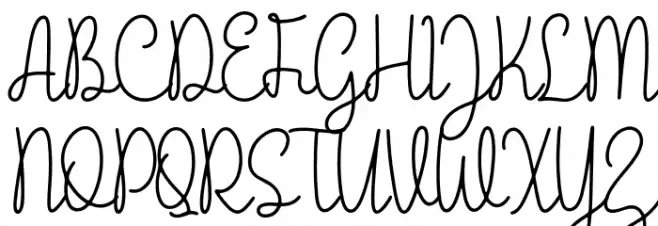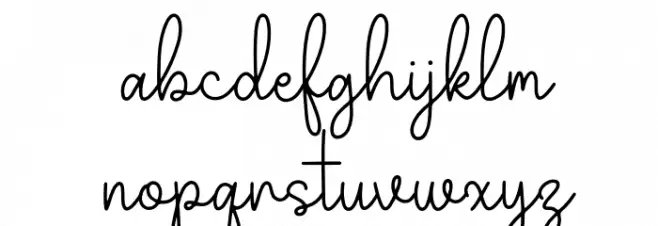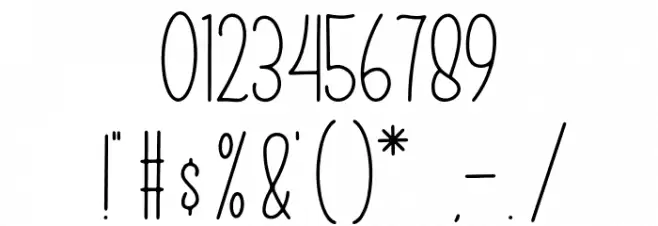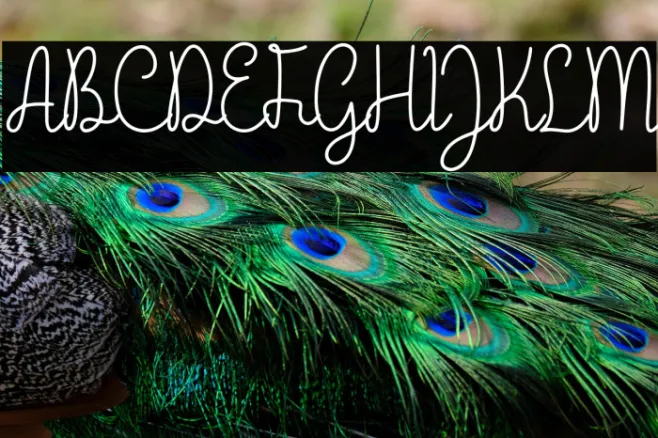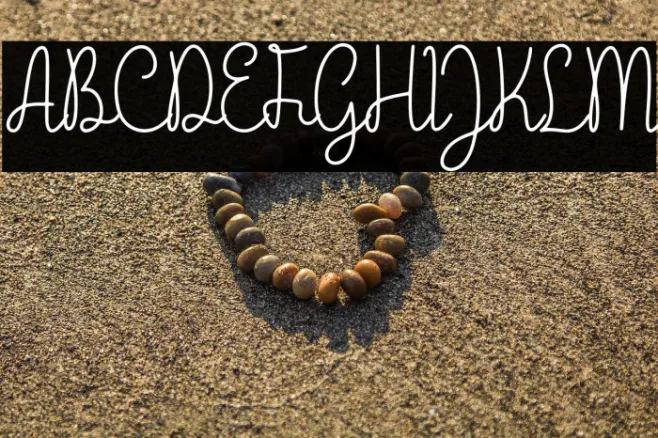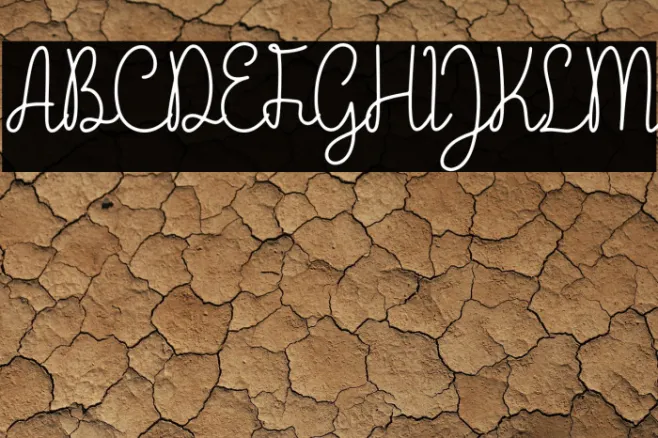
GreyJoy Font
GreyJoy Description
A playful, handwritten script font with a casual and flowing style, featuring connected letters and a friendly appearance.
Playful handwritten script font.
- Font: GreyJoy
- Proposed Projects: Greeting cards, invitations, personal branding.
- Category: Script
- Character Spacing: Tight
- Overall Style: Casual, Friendly
- Use Case: Logos, Invitations, Personal projects
GreyJoy UPPERCASE
GreyJoy LOWERCASE
GreyJoy OTHER CHARS